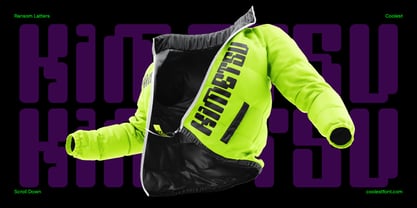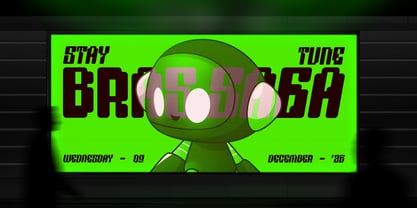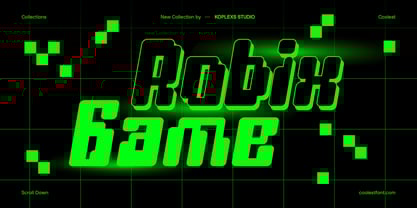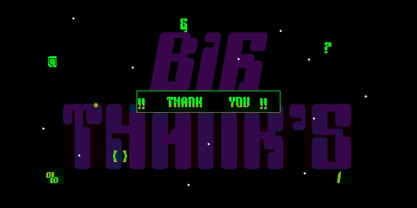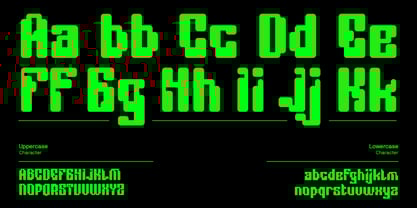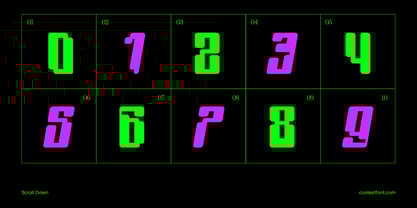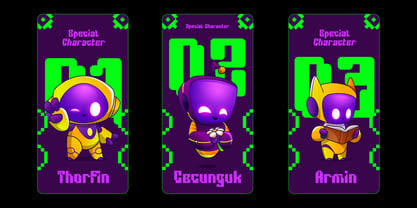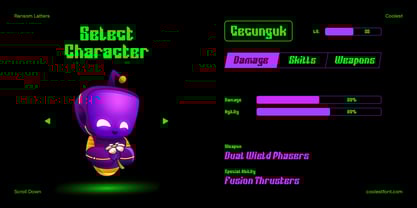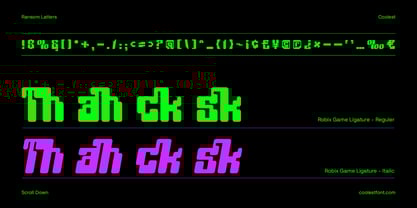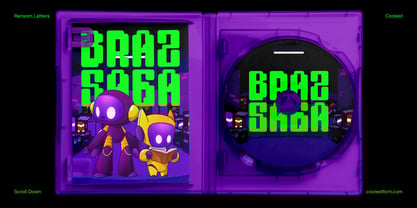
Robix Game
by Koplexs Studio
The Robix Game Font Family was designed by Ahmad Muslimin and published by Koplexs Studio. Robix Game contains 2 styles and family package options.
Robix Game Font by Koplexs Studio is a bold futuristic display font designed for creators who love gaming, technology, and modern design. Inspired by cyberpunk worlds, 8-bit graphics, and retro arcade energy, this font combines pixelated letters with a smooth futuristic edge. Perfect as a video game font or gaming typeface, it brings strong visual impact to titles, UI, logos, and posters. Robix Game Font also doubles as a digital clock font and headline font, making it great for sci-fi, fantasy, or RPG projects. Its readability and style make it ideal for designers, agencies, and brands looking for a unique identity. Perfect for webfonts, merchandise, and digital interfaces, this futuristic game font blends nostalgia and innovation in one timeless typeface.